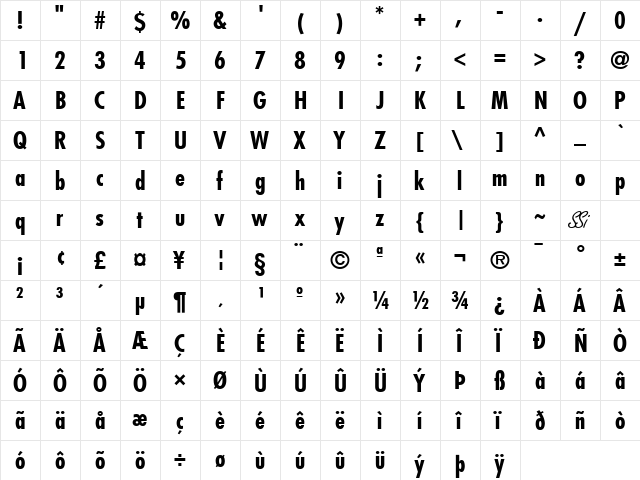
Kudos Black Condensed SSi Bold Condensed Font Preview
Design Context for Kudos Black Condensed SSi Typeface
Kudos Black Condensed SSi takes a measured approach to typography — its balanced proportions and neutral character make it a reliable workhorse for both digital and print work. The heavy weight commands attention and anchors typographic hierarchies. Its narrow stance lets it pack a punch even in space-constrained designs.
Pro Tip: Use Kudos Black Condensed SSi in both headline and body roles to test its range before committing to a single application.